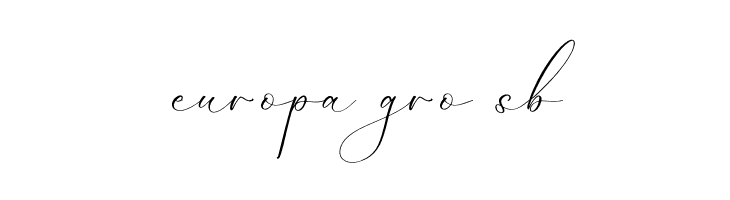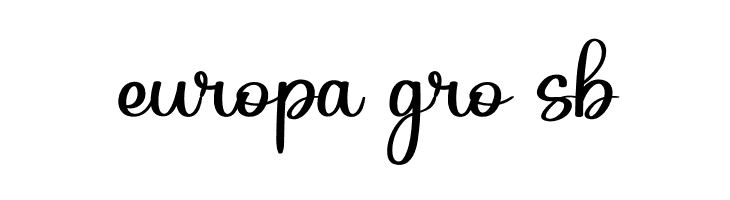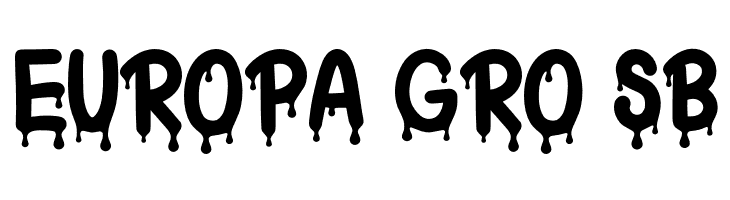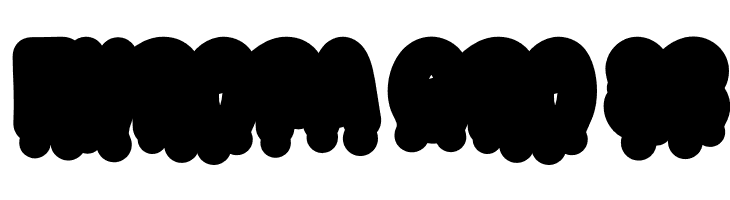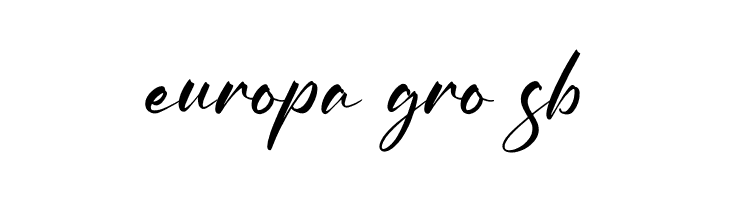
( Fonts by Storytype Studio )
A graceful, calligraphic script font.
( Fonts by RantautypeStudio )
Elegant handwritten signature font.
( Fonts by Etik Fatimah )
A playful, elegant script font with a handwritten style.
( Fonts by Letterative Studio )
Handwritten cursive script font.
( Fonts by Maulana Creative )
Elegant handwritten script font.
( Fonts by Aveni Letter Type )
A lively, hand-drawn script font with tall, narrow letters and playful loops.
( Fonts by Makashi )
Bold, dripping display font with a playful and spooky vibe.
( Fonts by Makashi )
A bold, bubbly outline display font with playful, cartoonish shapes.
Elegant, handwritten script with a signature feel.
Distressed, dripping horror display font with bold, chaotic forms.